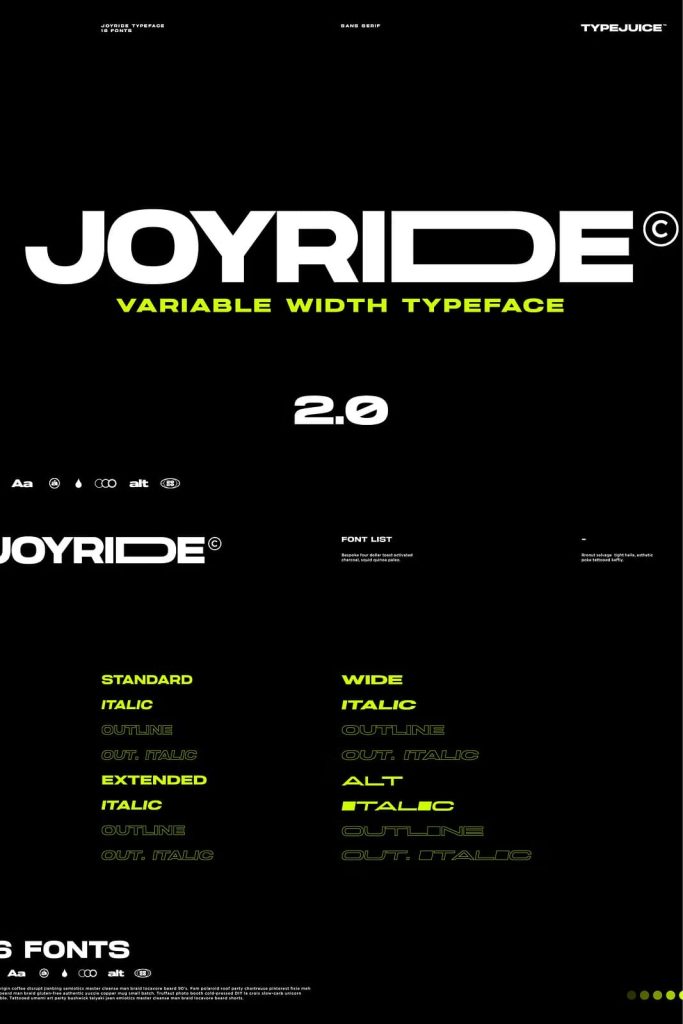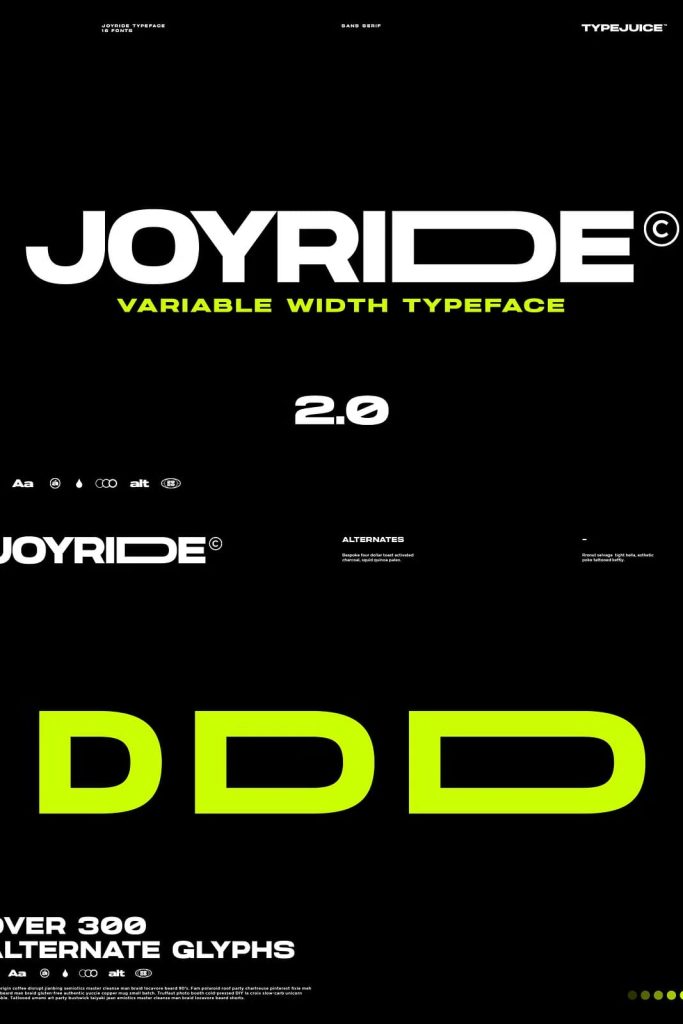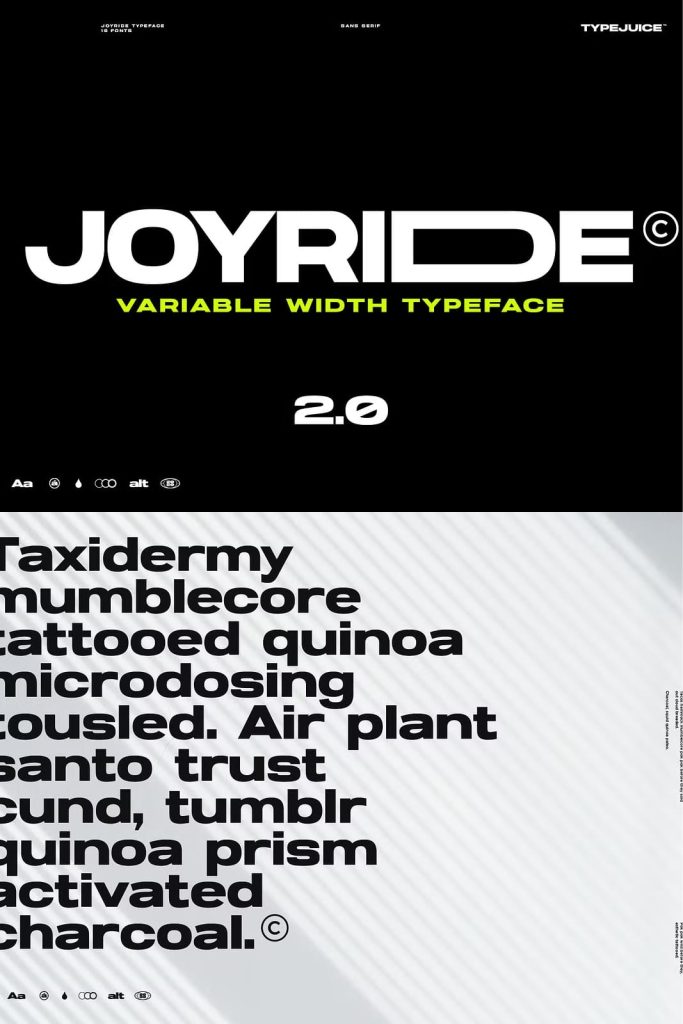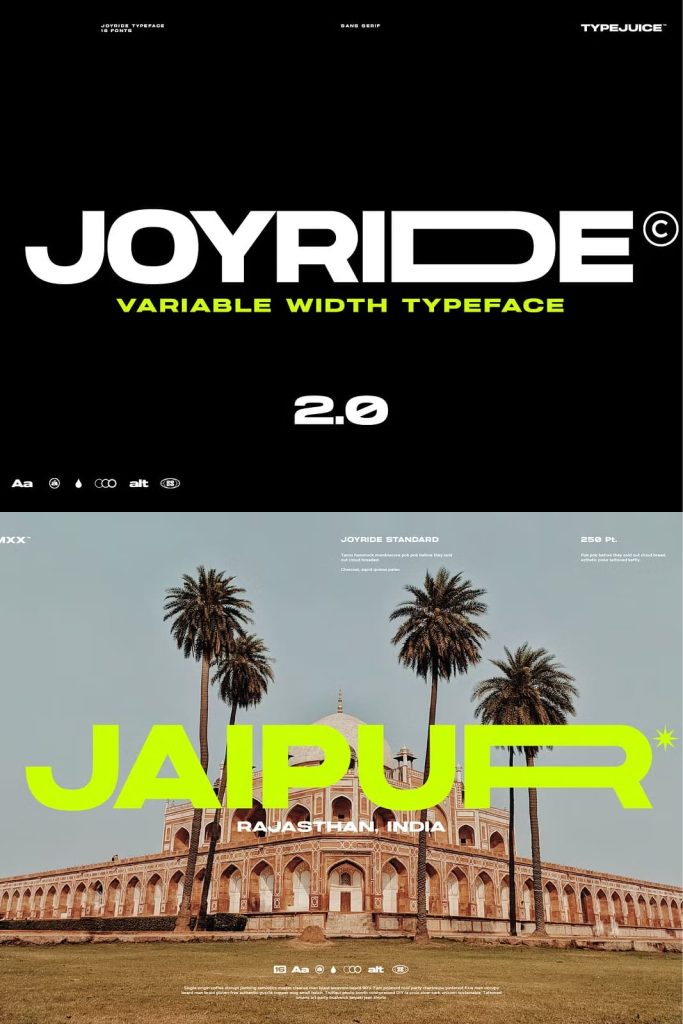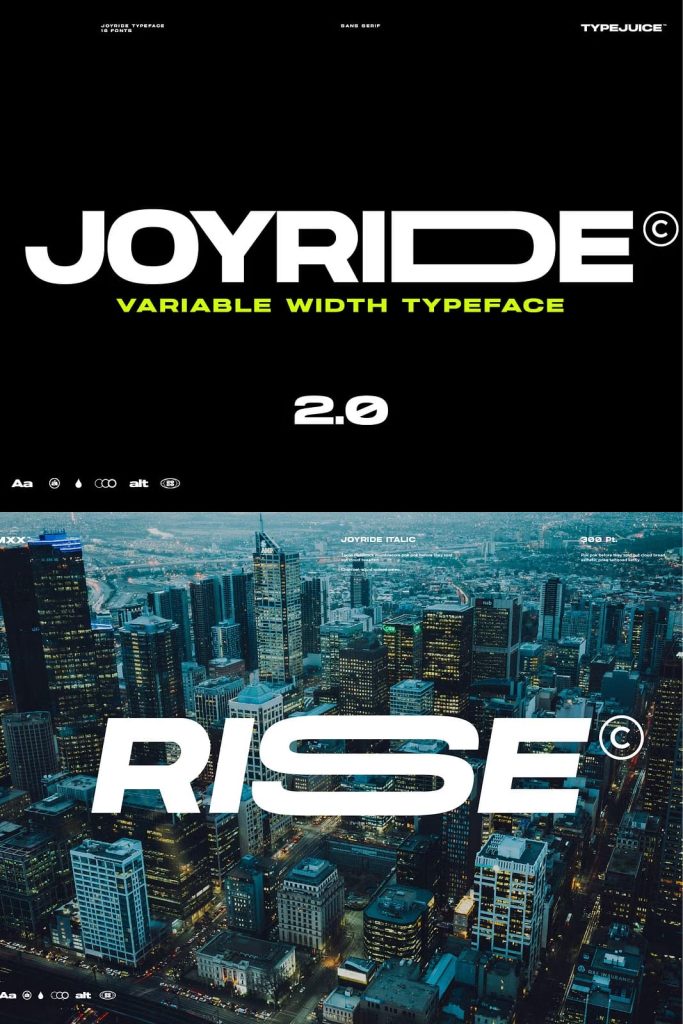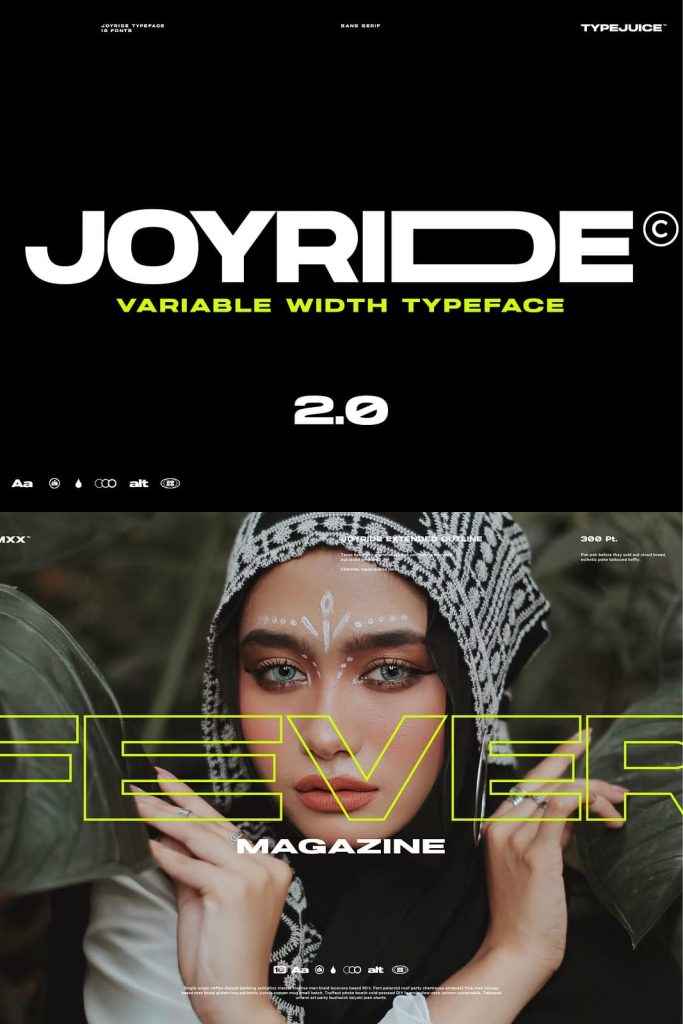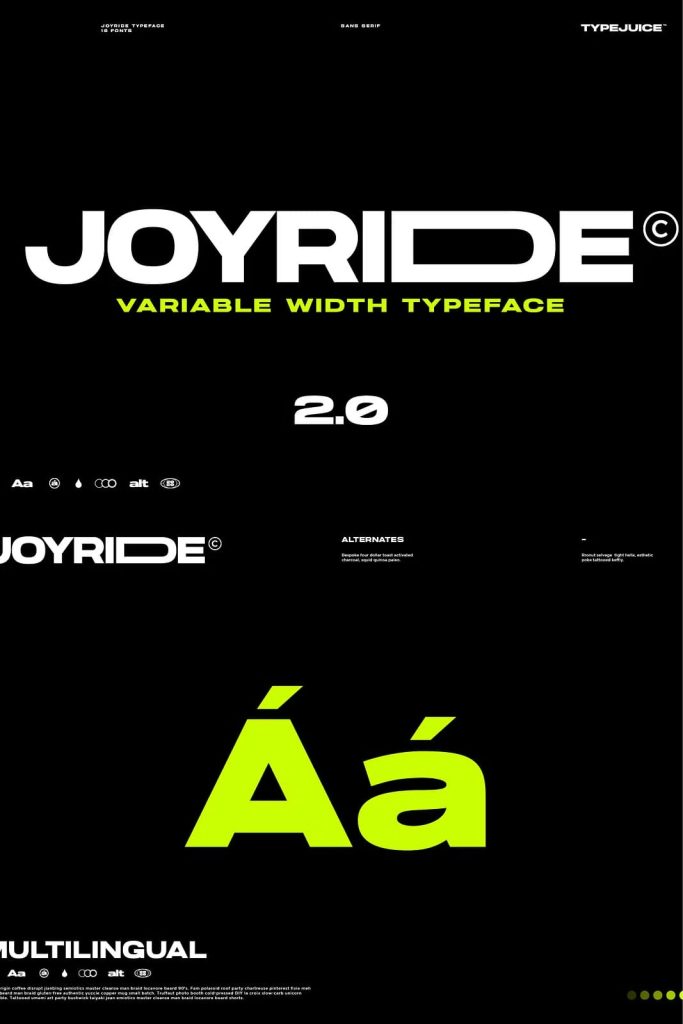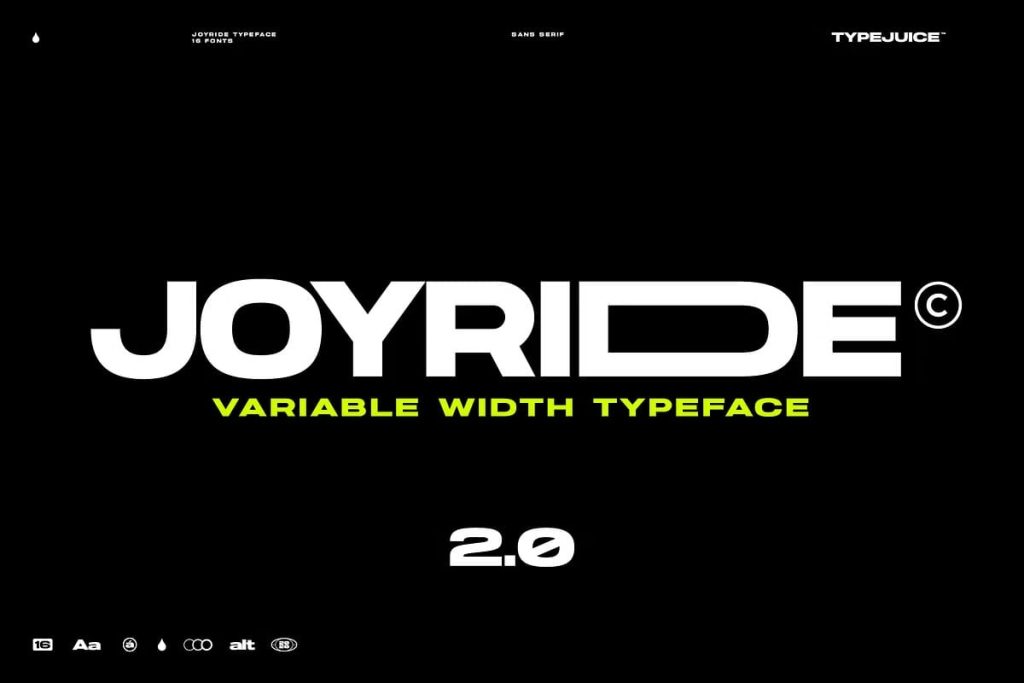
Joyride Extended Typeface
Joyride Variable Width Sans Serif Typeface: Dynamic Control for Modern Typography
Joyride is a variable width sans serif typeface that pushes the boundaries of modern typography through flexibility, precision, and creative freedom. Designed for designers who demand control and adaptability, Joyride introduces a dynamic system where width, weight, and style work together seamlessly. This typeface does not simply present letters; it gives designers the ability to shape and transform them to fit any visual concept.
With a complete family of 16 fonts, Joyride offers a wide range of weights and styles that adapt to diverse design needs. From bold, attention-grabbing headlines to clean and structured layouts, this typeface performs with consistency and clarity. Its extended width system makes it especially powerful for creating unique compositions that stand out in competitive visual environments.
A Variable Width System Built for Flexibility
Joyride introduces a variable width approach that allows designers to adjust the proportions of each letter. This feature creates a new level of typographic control, enabling more expressive and customized layouts. Instead of relying on fixed structures, designers can expand or condense letterforms to match the tone and space of their design.
This flexibility enhances both functionality and creativity. Designers can maintain readability while experimenting with spacing and composition. The result is a typeface that adapts to both structured and experimental design approaches.
16 Fonts for Complete Design Coverage
The Joyride family includes 16 carefully crafted fonts that cover a broad spectrum of weights and styles. Each variation has been designed to work harmoniously with the others, allowing designers to build strong typographic hierarchies.
Light weights provide elegance and subtlety, while heavier styles deliver impact and boldness. This range ensures that Joyride can support everything from minimal layouts to high-energy visual designs. Designers can mix and match styles to create balanced and engaging compositions.
Over 300 Alternate Glyphs for Endless Customization
Joyride stands out with its extensive library of more than 300 alternate glyphs. These alternates give designers the freedom to explore different letterforms and create unique typographic identities. Each glyph variation offers subtle or dramatic changes that can completely transform the look of a word or phrase.
This feature makes Joyride especially valuable for branding and creative projects. Designers can craft distinctive logos, headlines, and visual elements that feel original and tailored. The variety of alternates ensures that no two designs need to look the same.
Creative Control Through Variable Width Alternates
The combination of alternate glyphs and variable widths unlocks a powerful level of creative control. Designers can adjust both the shape and proportion of letters, creating compositions that feel dynamic and intentional. This capability allows for precise alignment, improved spacing, and enhanced visual rhythm.
By experimenting with these features, designers can develop typography that responds directly to the needs of their project. Whether aiming for a bold statement or a refined aesthetic, Joyride provides the tools to achieve it.
Perfect for Modern Branding and Digital Design
Joyride excels in branding projects where uniqueness and adaptability are essential. Its customizable nature allows brands to develop strong and memorable identities. The ability to modify widths and choose from a wide range of alternates helps create logos and visual systems that stand out.
In digital design, Joyride performs with clarity and precision. Its clean sans serif structure ensures readability across different screen sizes, while its flexible features allow designers to create engaging user interfaces and visual content.
Ideal for Headlines, Layouts, and Creative Typography
Joyride works exceptionally well in headlines, where its adjustable widths and bold styles create strong visual impact. Designers can use it to craft eye-catching titles that immediately draw attention.
In layouts, the typeface supports structured compositions while allowing room for experimentation. It adapts to grids, asymmetrical designs, and typography-driven visuals. This versatility makes it suitable for editorial design, advertising, and digital campaigns.
Precision Craftsmanship Meets Innovation
Every detail in Joyride reflects careful design and technical precision. The spacing, proportions, and transitions between styles have been refined to ensure consistency across the entire family. This attention to detail allows the typeface to perform reliably in both large-scale and detailed applications.
Joyride combines traditional typographic principles with modern innovation. It respects the fundamentals of readability while introducing new possibilities for creative expression. Designers can rely on it to deliver both performance and originality.
Conclusion
Joyride variable width sans serif typeface offers a powerful combination of flexibility, customization, and modern design. With 16 fonts, over 300 alternate glyphs, and a dynamic width system, it provides unmatched creative control. Designers can use Joyride to build distinctive branding, engaging layouts, and expressive typography that stands out in any medium.